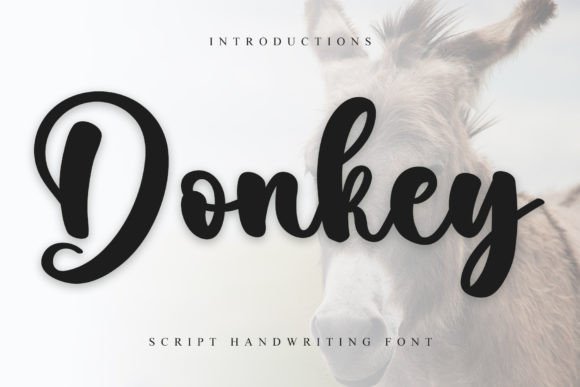
The Joy of Handwritten Fonts: Introducing Donkey Font
Have you ever sat at your desk, staring blankly at a blank page, trying to come up with the perfect design to capture someone’s attention? It’s a moment we’ve all been in, and it’s exactly what sparked the creation of the Donkey Font. A stylish and modern handwritten font, Donkey is designed to bring a smile to your face and a touch of personality to your creations.
Whether you’re working on a greeting card, a headline, or a branding project, Donkey Font is the perfect companion to help you convey your message in a unique and engaging way. Its PUA encoding makes it easy to access all the amazing glyphs and ligatures, giving you the freedom to get creative and experiment with different styles.
Donkey Font Key Features
- Font Family: A unique, hand-drawn font with a playful and rustic feel.
- Unique Characteristics: Features distinctive donkey-inspired glyphs, such as the letter “Q” resembling a donkey’s ear, and other whimsical elements.
Designer Review: Donkey Font
Overall, I think Donkey Font has some great qualities that make it stand out. Here are a few things that work well: ✨
- Unique Character: Donkey Font has a quirky and playful personality that sets it apart from more traditional fonts. It’s perfect for designers who want to add some whimsy to their projects.
- High Legibility: Despite its quirky nature, Donkey Font is surprisingly legible, making it suitable for body text and headings.
- Fun Variations: The font comes with a range of variations, from bold to italic, which makes it easy to create visually appealing designs.
- Limited Font Sizes: While Donkey Font looks great at larger sizes, it can become blurry and difficult to read at smaller sizes.
- Not Ideal for Formal Text: Due to its playful nature, Donkey Font may not be the best choice for formal or professional projects.
- Lack of Consistency: Some users have reported inconsistent spacing and kerning issues, which can affect the overall design.
Overall, I think Donkey Font is a great choice for designers who want to add some personality to their projects. While it has some limitations, its unique character and high legibility make it a solid addition to any font collection.
Donkey Font is ideal for creating playful, whimsical designs and adding a touch of humor to your projects. Some common use cases include:
– Creating cartoon-style graphics
– Designing children’s educational materials
– Adding a playful touch to social media graphics